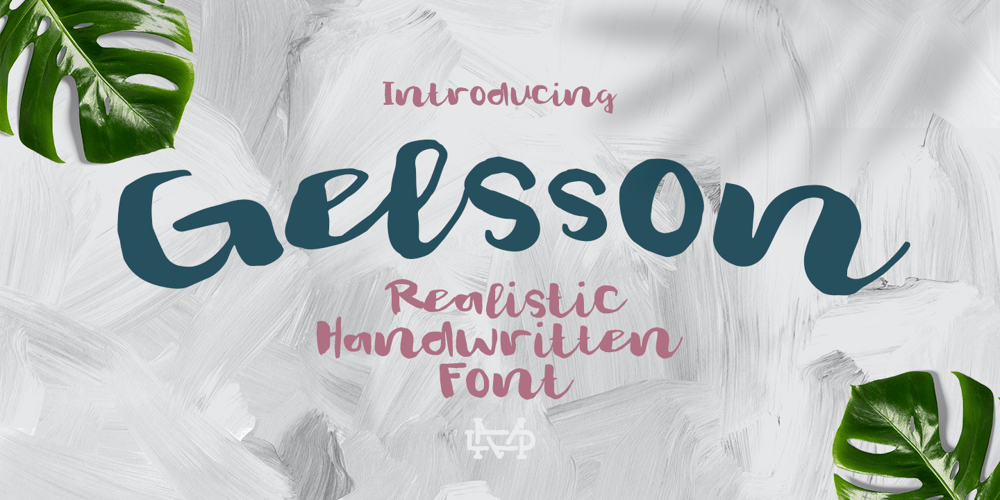
Gelsson Font Family was designed by madededuk and published by madeDeduk. Gelsson contains 1 styles and family package options. Really excited to introduce Gelsson is a realistic brush script! Gelsson will be perfect for all your designs project.Included: Uppercase Lowercase Number & Symbol International Glyphs Ligature If you need anything else just shoot me on email at: dedukvic@gmail.comfind more previews on my website here : https://typeclassheroes.com/Hope you enjoy it.